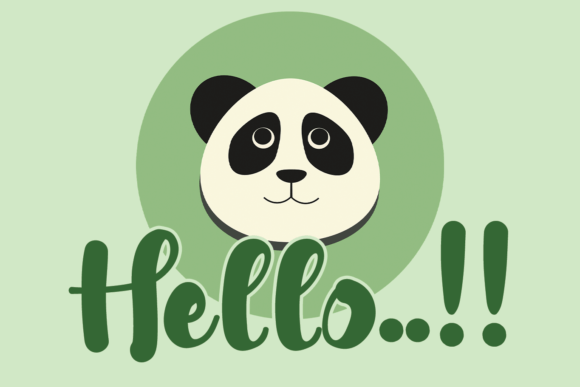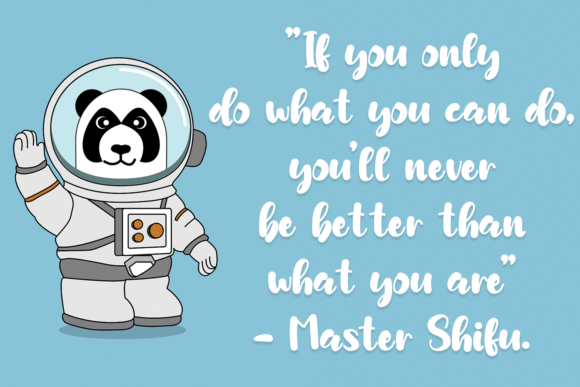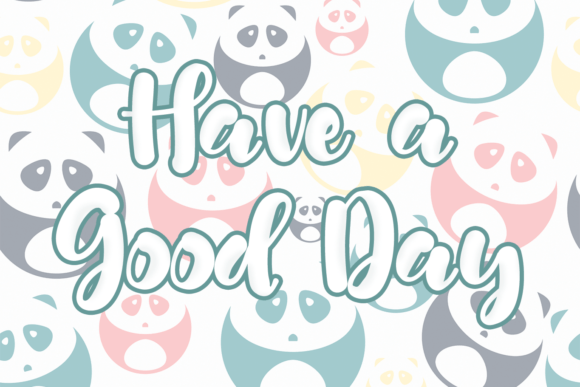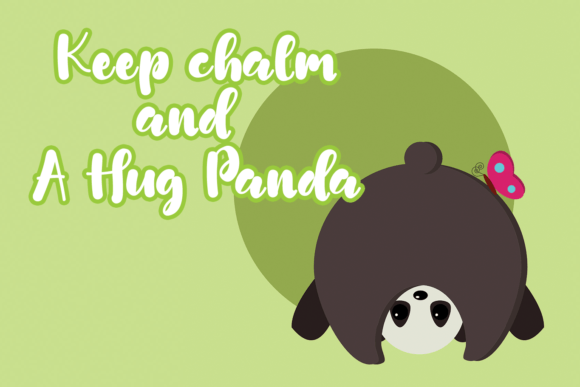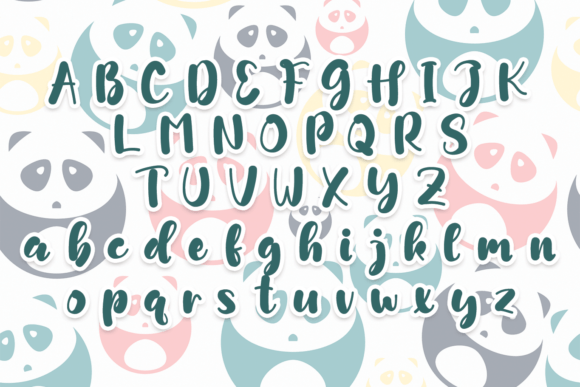
Panda Font
About Panda Font
**Panda Handwritten Font: Timeless Elegance with a Contemporary Twist**
The “Panda” handwritten font is a true masterpiece, carefully crafted to capture the essence of timeless elegance while infusing a contemporary and fresh twist. With its delicate calligraphic influences and graceful style, “Panda” has the potential to become a beloved favorite in your font library. Here’s how you can use this exquisite font to elevate your creative projects:
1. **Invitations:** Create stunning invitations for weddings, special events, or upscale gatherings. “Panda” adds a touch of class and sophistication to your event announcements, setting the tone for an unforgettable experience.
2. **Greeting Cards:** Design elegant greeting cards for occasions like birthdays, anniversaries, or holidays. The font’s timeless charm enhances your heartfelt messages and adds a sense of refinement.
3. **Logo Design:** Craft logos and branding materials for high-end businesses, boutique brands, or luxury products. “Panda” communicates a sense of sophistication and creates a distinctive brand identity.
4. **Quote Graphics:** Design captivating quote graphics for social media, posters, or merchandise. The font’s elegance elevates your quotes and messages, making them visually striking.
5. **Product Packaging:** Enhance the packaging of premium products, such as gourmet foods, fine wines, or high-end cosmetics, with “Panda” to convey a feeling of luxury and exclusivity.
6. **Menu Design:** Create refined menus for fine dining restaurants, upscale cafes, or gourmet eateries. The font complements the dining experience by adding an element of elegance to the presentation of dishes.
7. **Stationery:** Design personalized stationery sets with “Panda,” perfect for handwritten notes, letters, and thank-you cards. It brings a sense of timeless beauty to your written communication.
8. **Wedding Materials:** Craft exquisite wedding materials, including save-the-date cards, menus, and place cards. The font enhances the overall aesthetic of a wedding celebration, infusing it with a sense of luxury.
9. **Fashion Branding:** Use the font in branding materials for high-fashion labels, couture designers, or upscale clothing brands. It exudes an aura of sophistication and style that resonates with discerning shoppers.
10. **Magazine Headings:** Incorporate “Panda” into magazine headings and article titles to create a luxurious and captivating look for editorial content. It adds a refined touch to publications.
11. **Art Exhibitions:** Apply the font to promotional materials for art exhibitions, gallery openings, or cultural events, infusing your designs with artistic sophistication and timeless allure.
12. **Hotel Branding:** Use “Panda” in branding materials for luxury hotels and resorts to create a welcoming atmosphere that reflects opulence and hospitality, inviting guests to experience unparalleled comfort.
13. **Product Labels:** Enhance the labels of premium and artisanal products, such as handcrafted goods or exclusive accessories, with “Panda” to convey a sense of craftsmanship and luxury.
14. **Event Posters:** Design elegant posters for formal events, galas, or fundraising soirées, featuring the font to evoke a sense of refined style and attract an upscale audience.
15. **Cocktail Menus:** Craft stylish cocktail menus for bars or lounges, showcasing “Panda” to create an inviting and upscale ambiance that enhances the overall drinking experience.
16. **Interior Design:** Use the font in promotional materials for interior design firms or luxury home decor brands to evoke a sense of refined style and sophistication in home design.
“Panda” is a handwritten font that seamlessly blends the timeless with the contemporary, resulting in a versatile choice for a wide range of design projects. Its delicate and graceful style adds depth and sophistication to your creative work, leaving a lasting impression on your audience. Embrace “Panda” and elevate your projects to new levels of elegance and class, creating designs that stand the test of time with a modern twist.